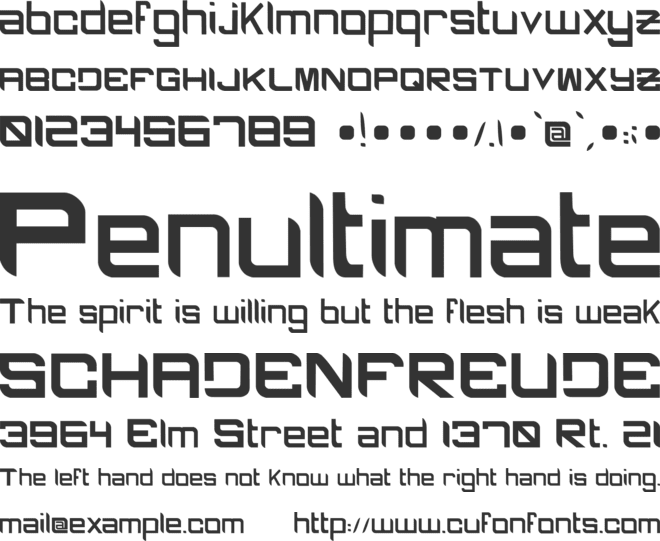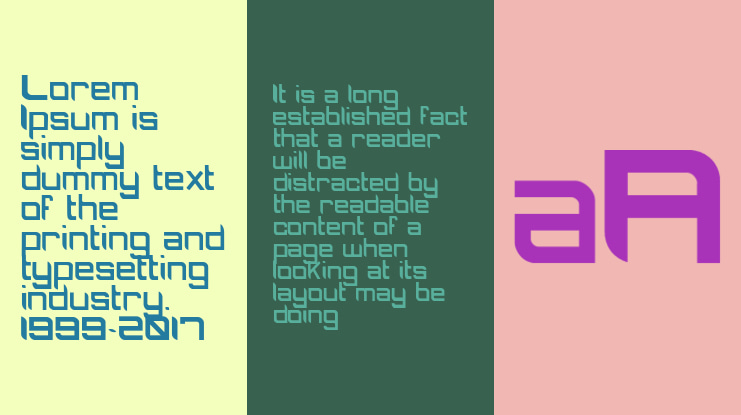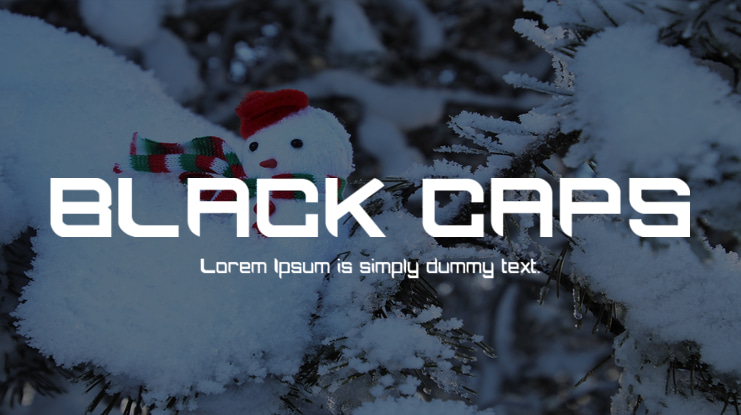
BLACK CAPS Font
Is a strong high-impact font. I guess the best way to use it is writing with the caps-lock. If you set "0" space between characters, you'll have a nice effect, as I did in my logo. ----- For info or suggestions: gianluca369[at]gmail.com